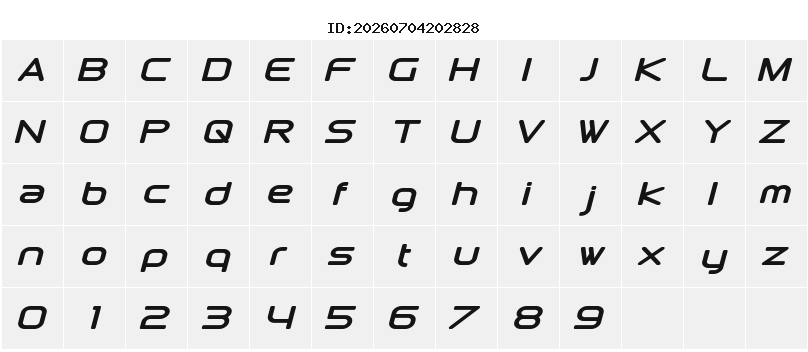
• Font Name: Downlink
• Full Font Name: Downlink Bold Italic
• Designer: Neale Davidson
About Downlink.otf
Downlink.otf is a modern, elegant sans-serif font designed for ultimate readability and visual harmony. Perfect for branding, headlines, web design, and print materials.